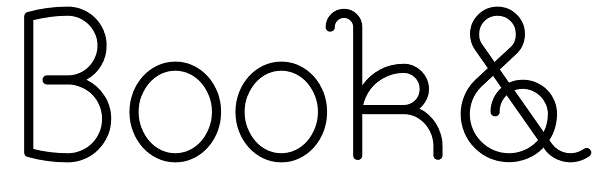
Book&
A design reminiscent to school script and handwriting, yet slightly off beat, with a gracious and elegant motion. Originally designed for invitations for a book store, the typeface likes to think it refers refers to book typography of the 40s and...